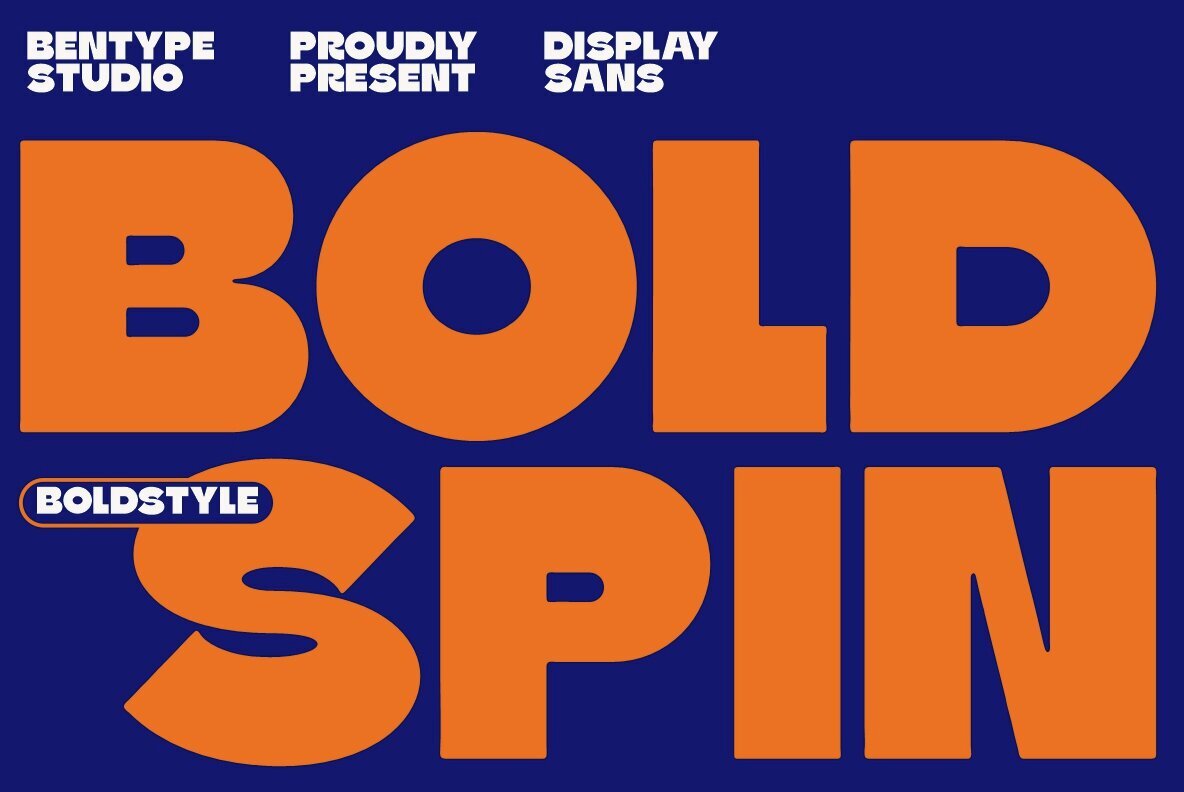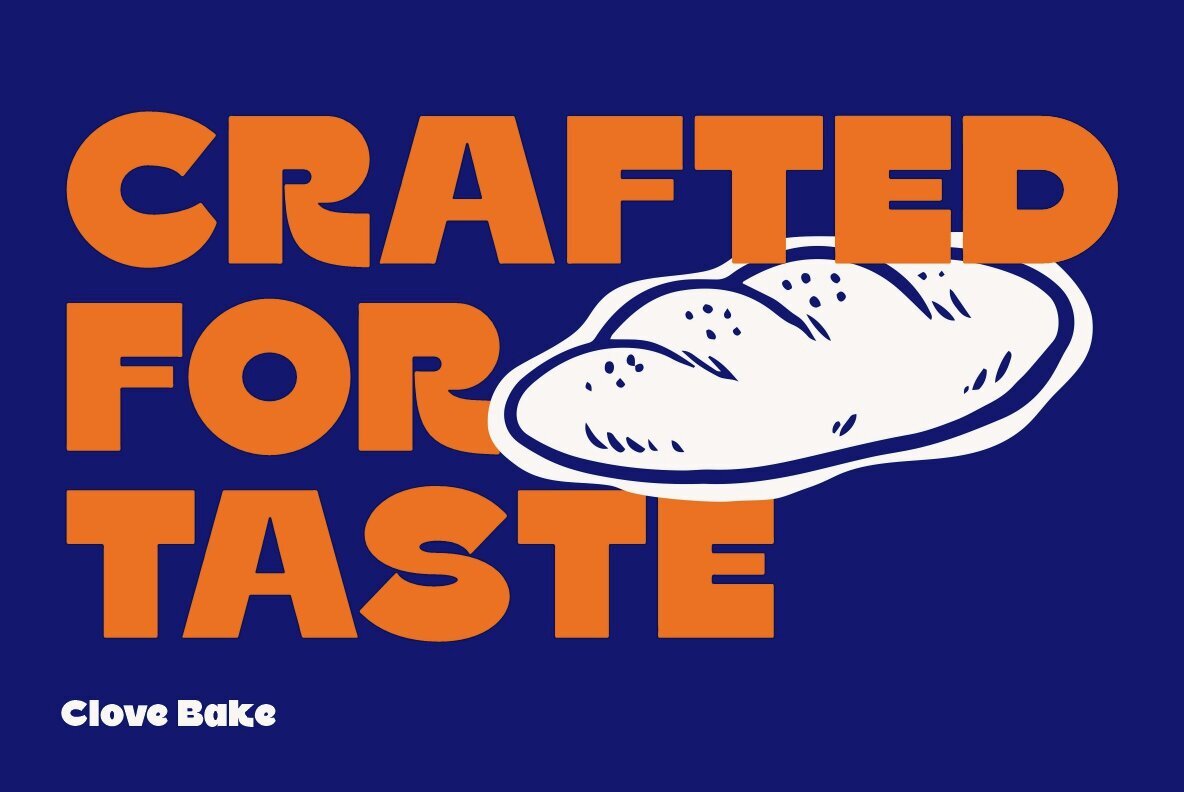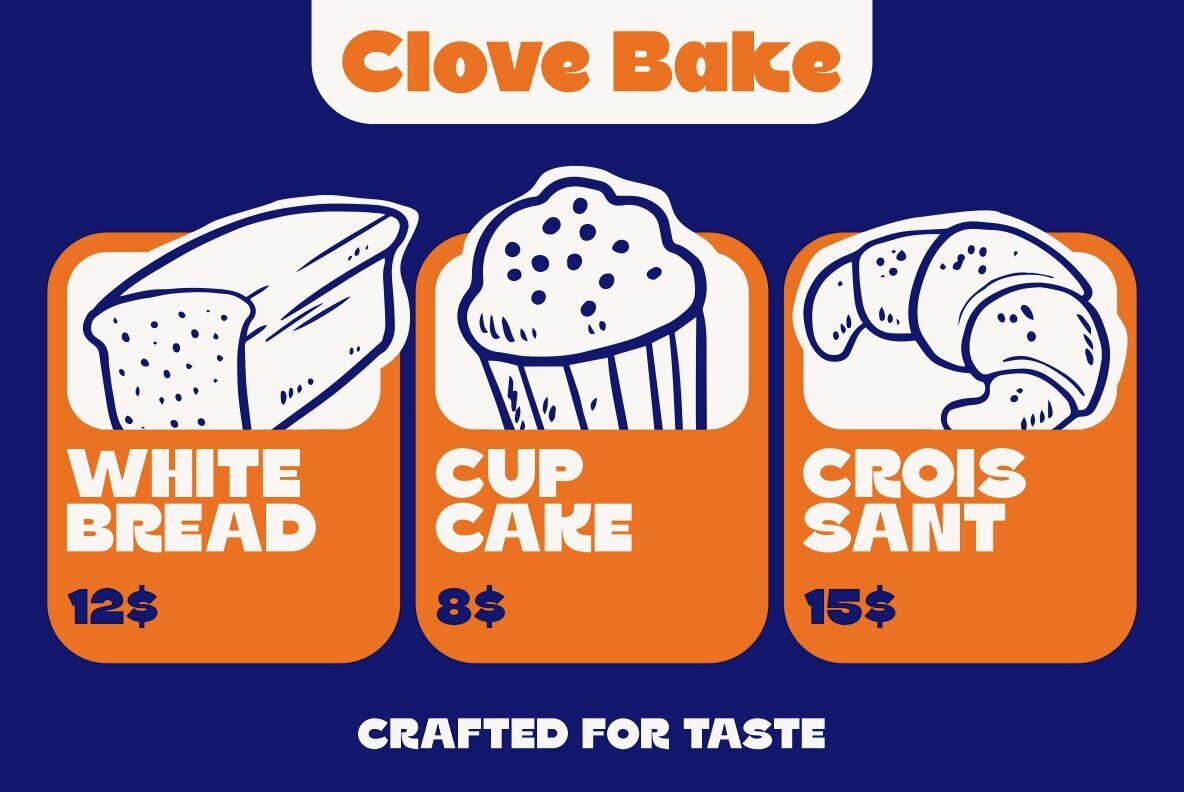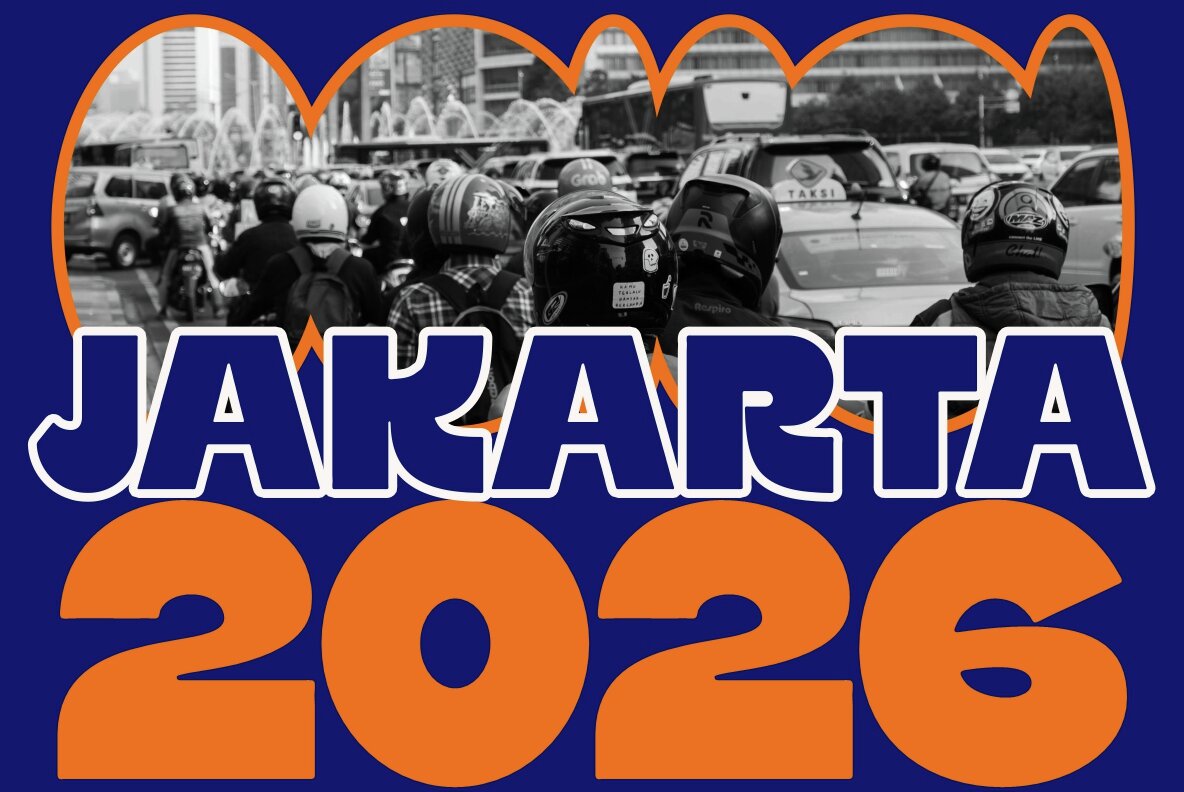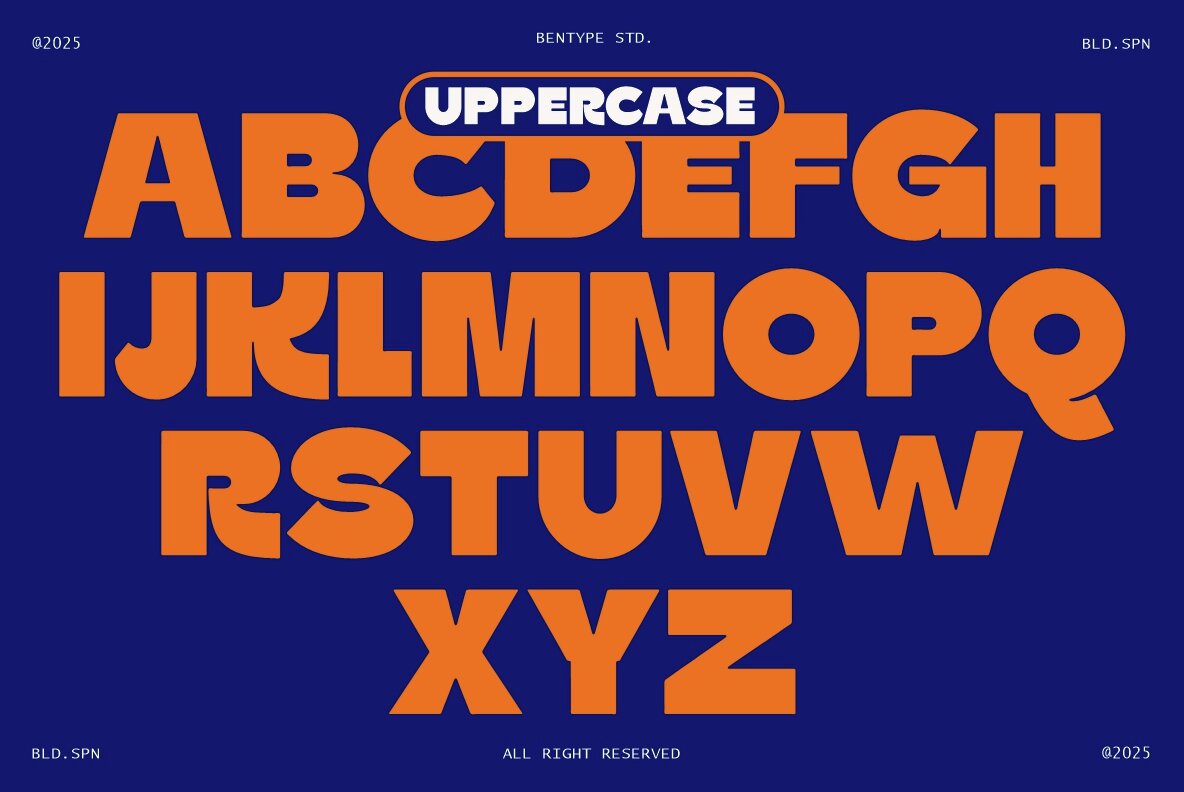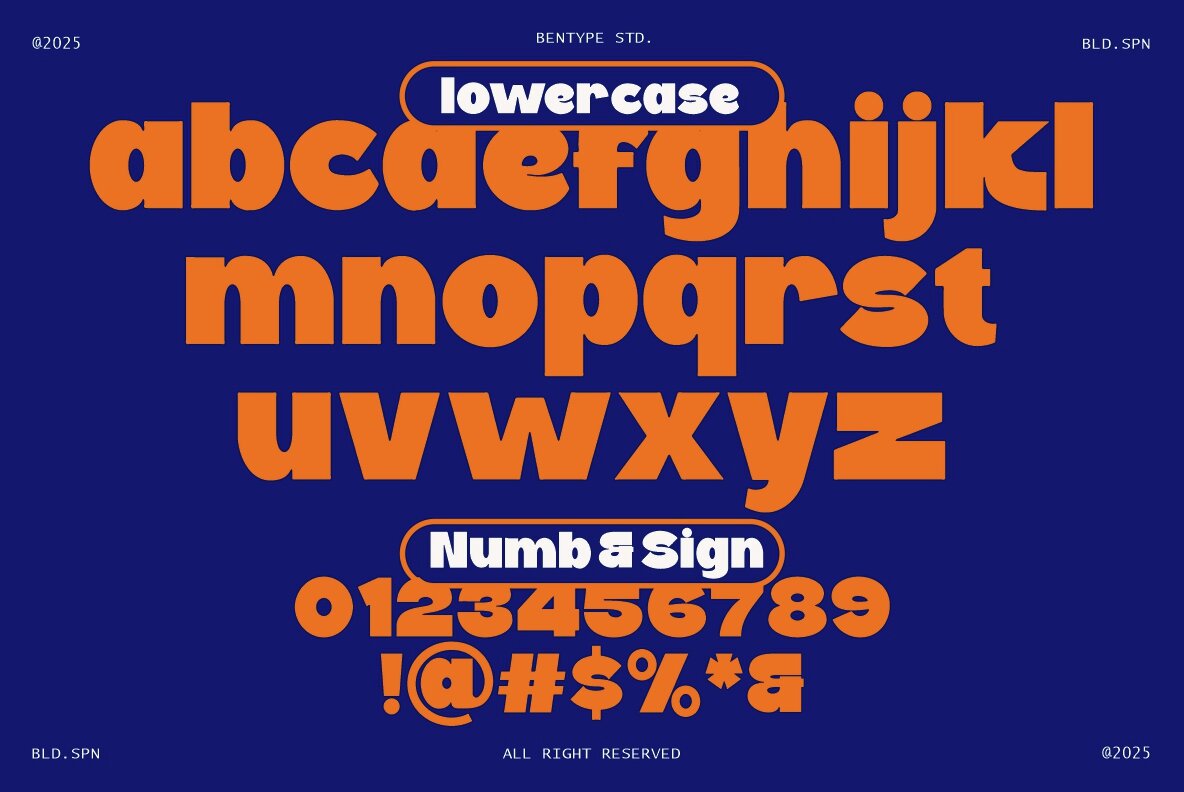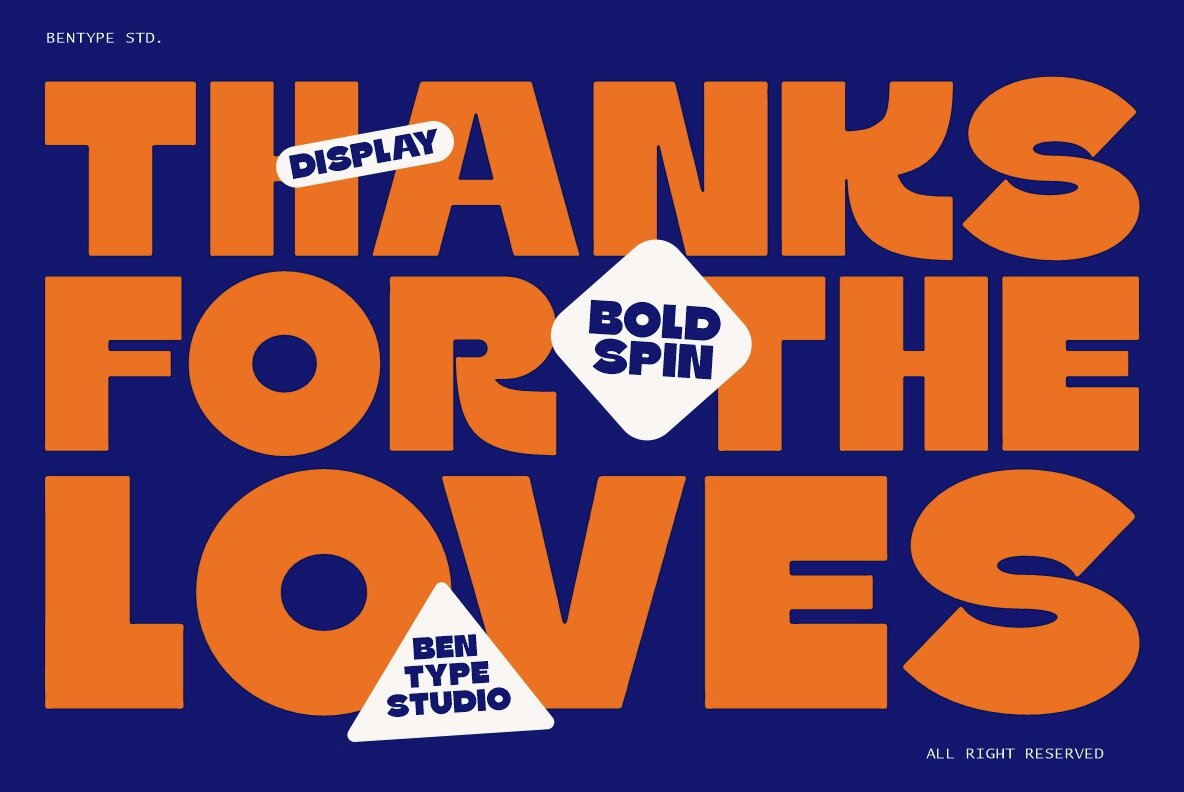
Boldspin Font
Boldspin Regular
Boldspin stands out with its extra bold letterforms, offering a commanding presence for display, headline, and banner applications. The font’s heavy construction lends visual weight and clarity, making each character an anchor point within your composition. Its design harks back to the iconic sans serifs that defined eras of impactful editorial and signage work, bringing both nostalgia and distinct personality to contemporary projects. Despite the pronounced thickness, Boldspin maintains clean proportions, allowing designers to maintain legibility even at larger sizes. This font’s pared-down feature set focuses on what matters: crisp letterforms, essential numerals, and functional punctuation. Whether featured in branding or editorial spreads, Boldspin remains a versatile solution for projects that demand immediacy and style. Features:Boldspin: Extra Bold Sans for Impactful Display Design